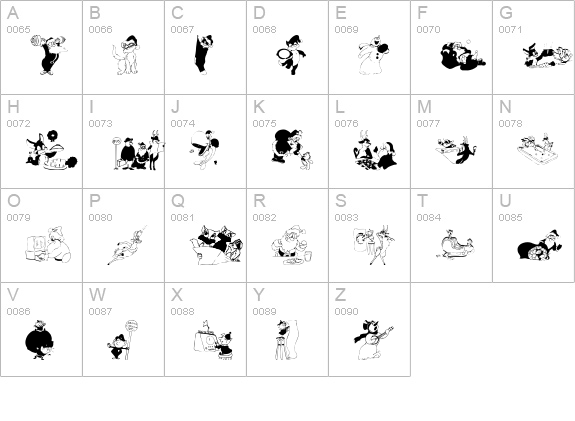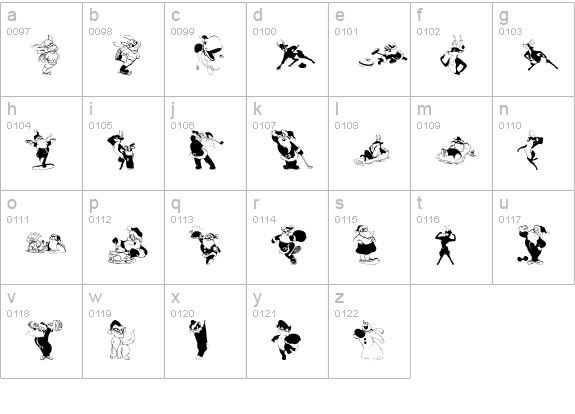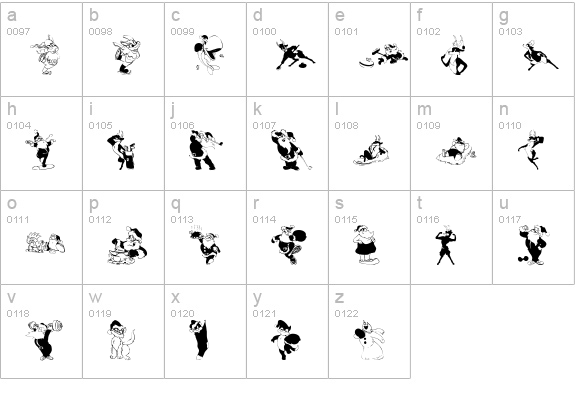
XmasOne Font Details
Introducing XmasOne font, a delightful and festive typeface perfect for all your holiday design needs. With its playful and whimsical style, XmasOne captures the spirit of Christmas and adds a touch of cheer to any project. This font features unique characters and decorative elements that are sure to make your designs stand out during the holiday season. Best of all, XmasOne font is available for free download at FontsMarket.com. Whether you're creating greeting cards, invitations, posters, or social media graphics, this font is a wonderful choice for adding a touch of holiday magic to your designs. Spread joy and merriment with XmasOne font today!